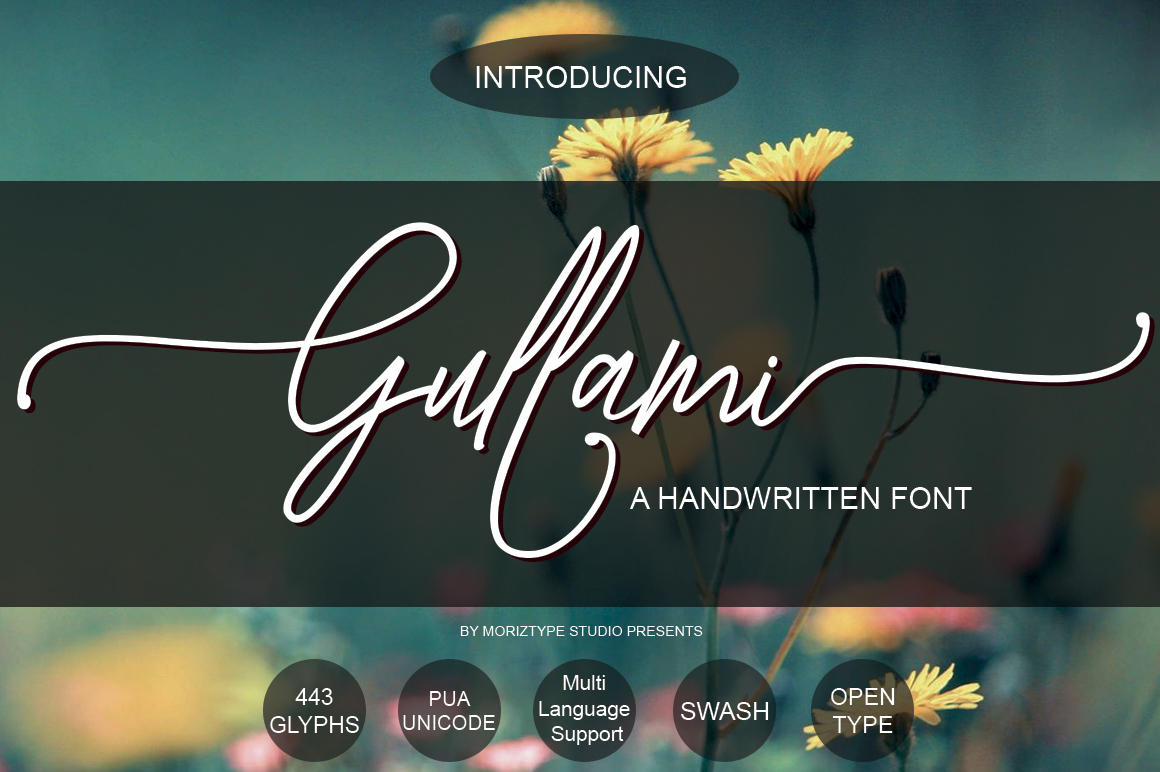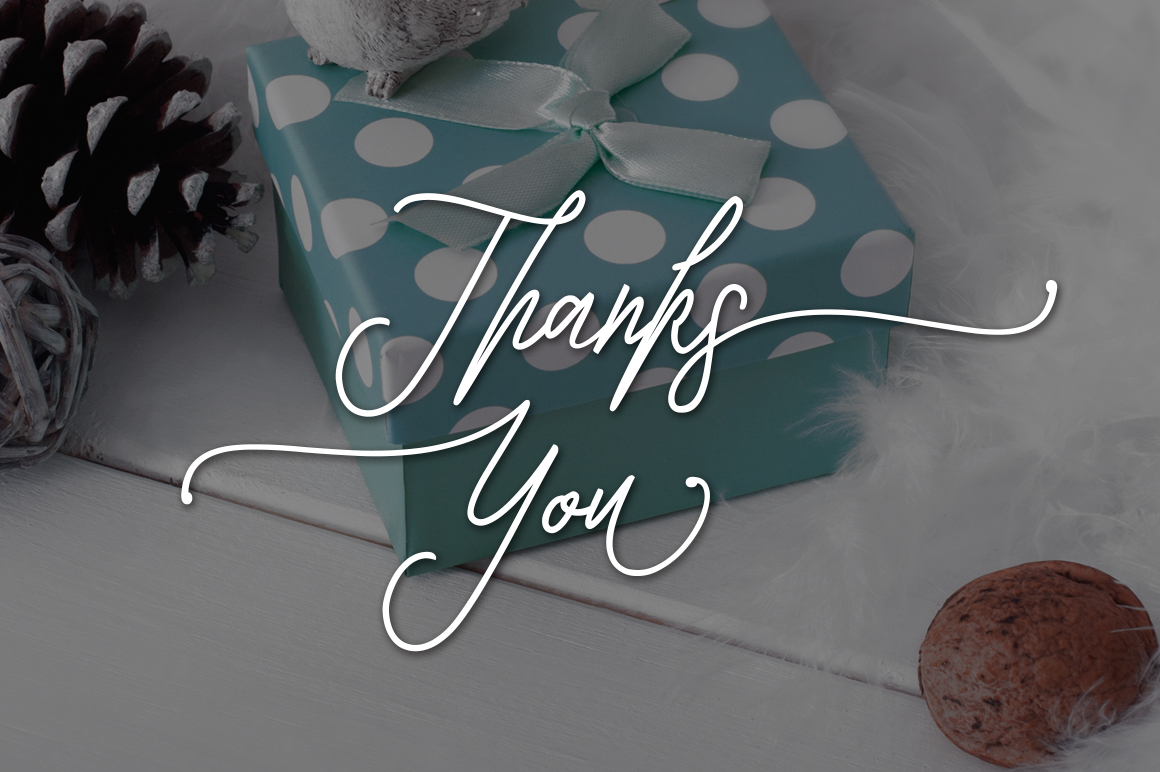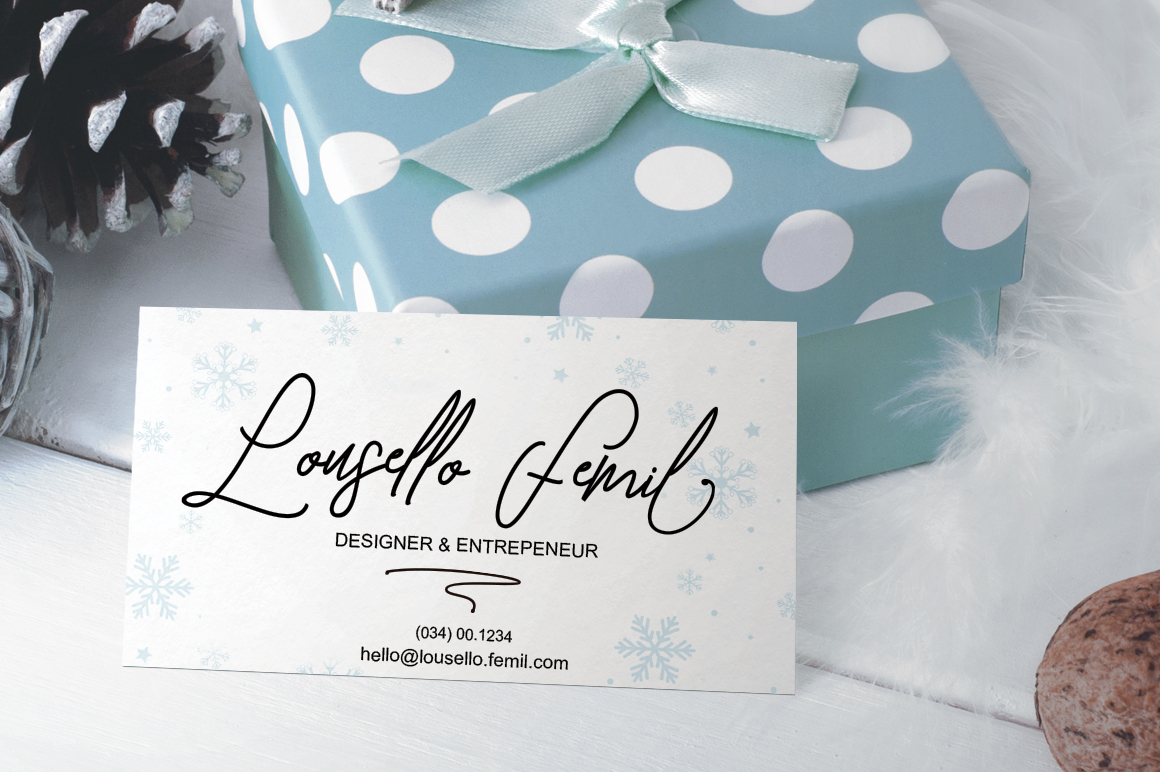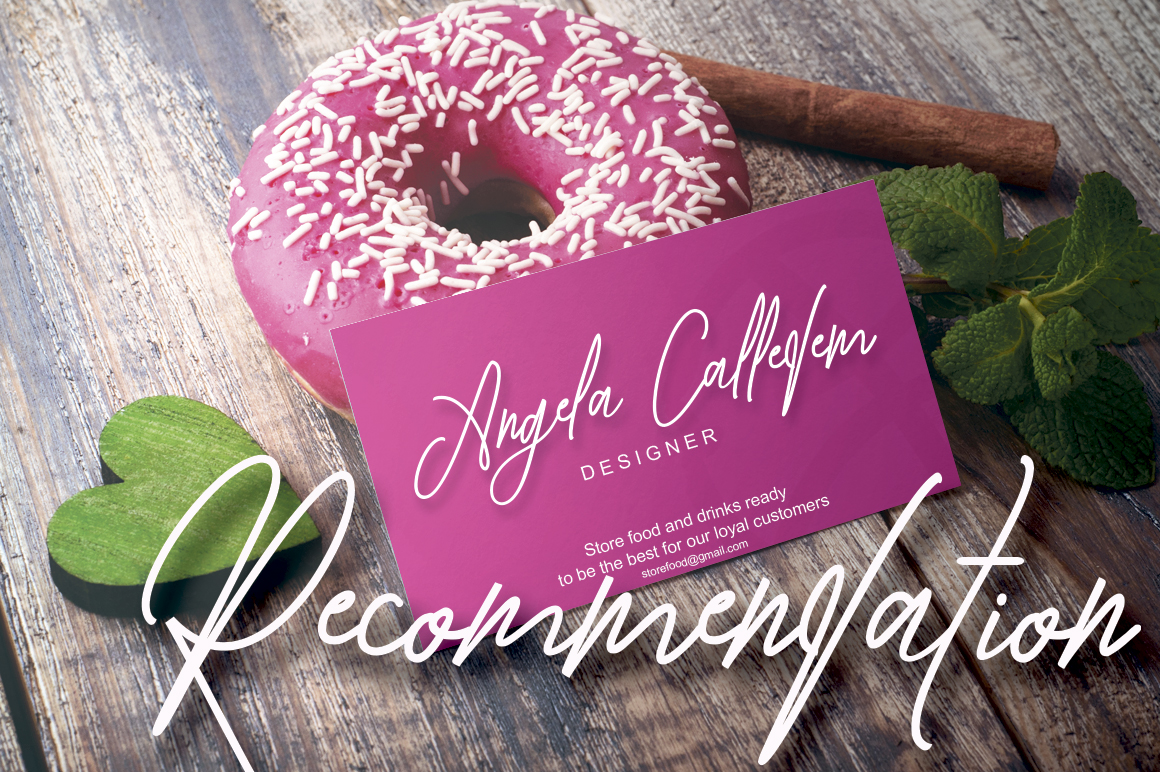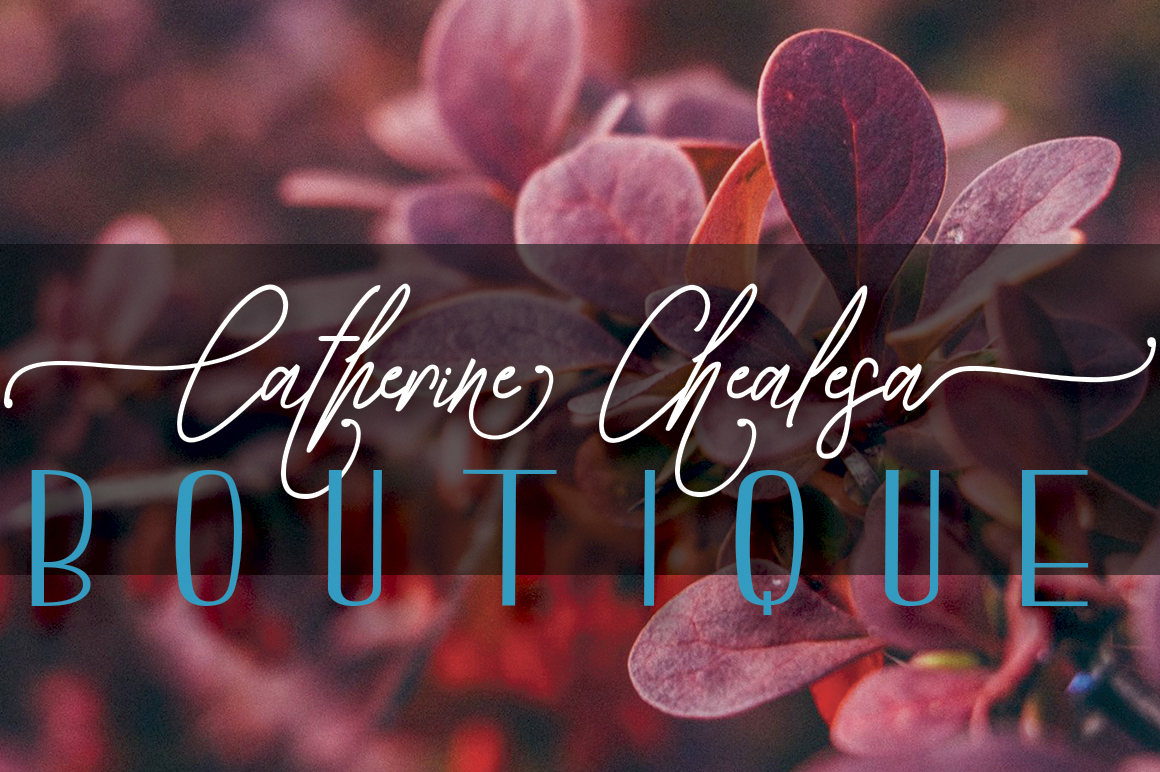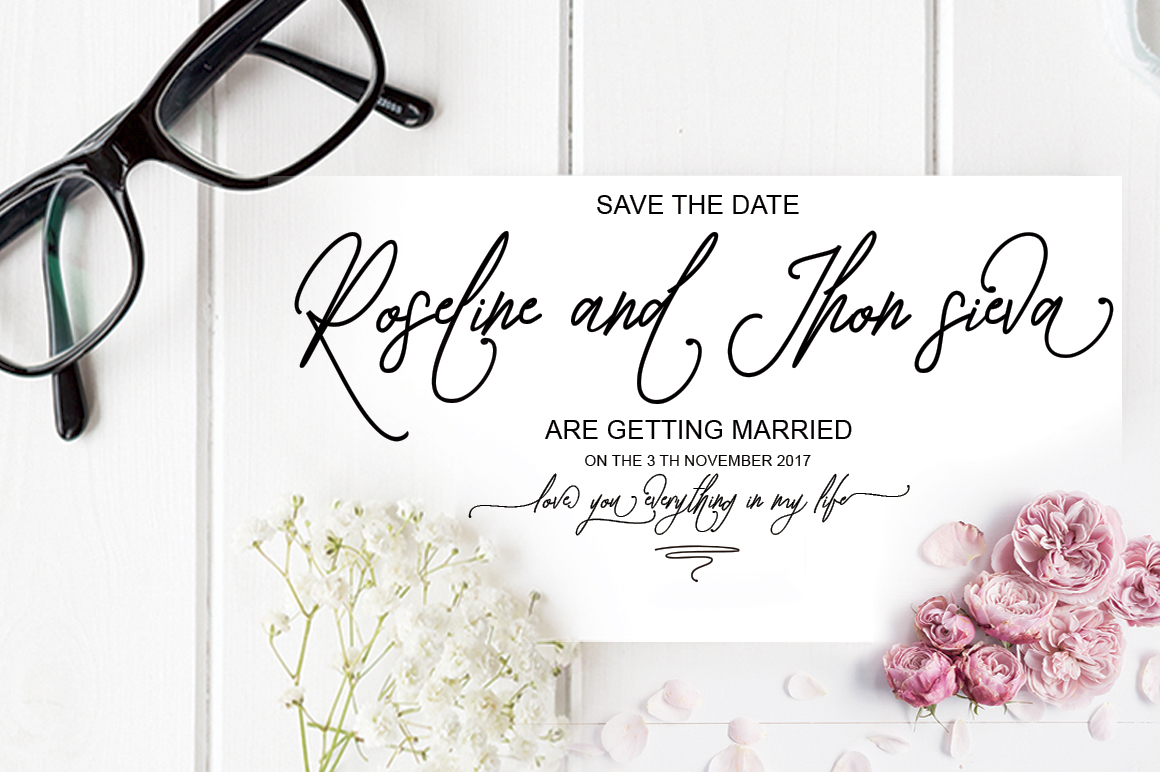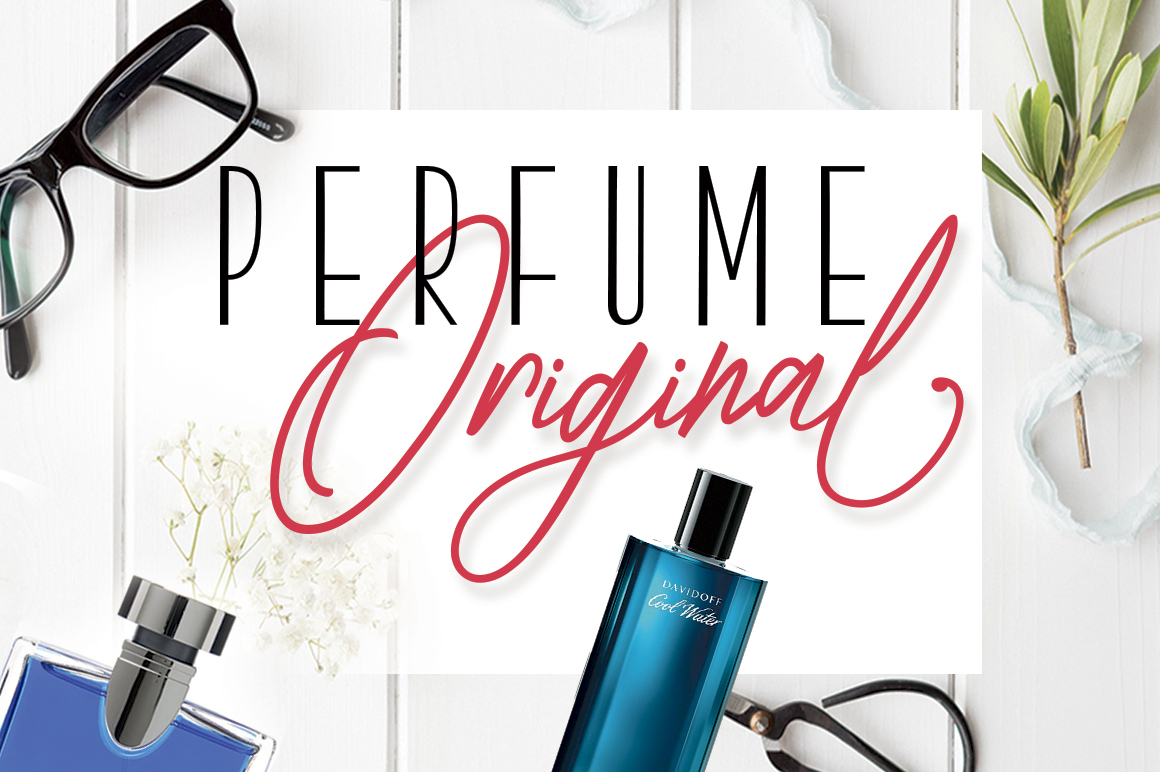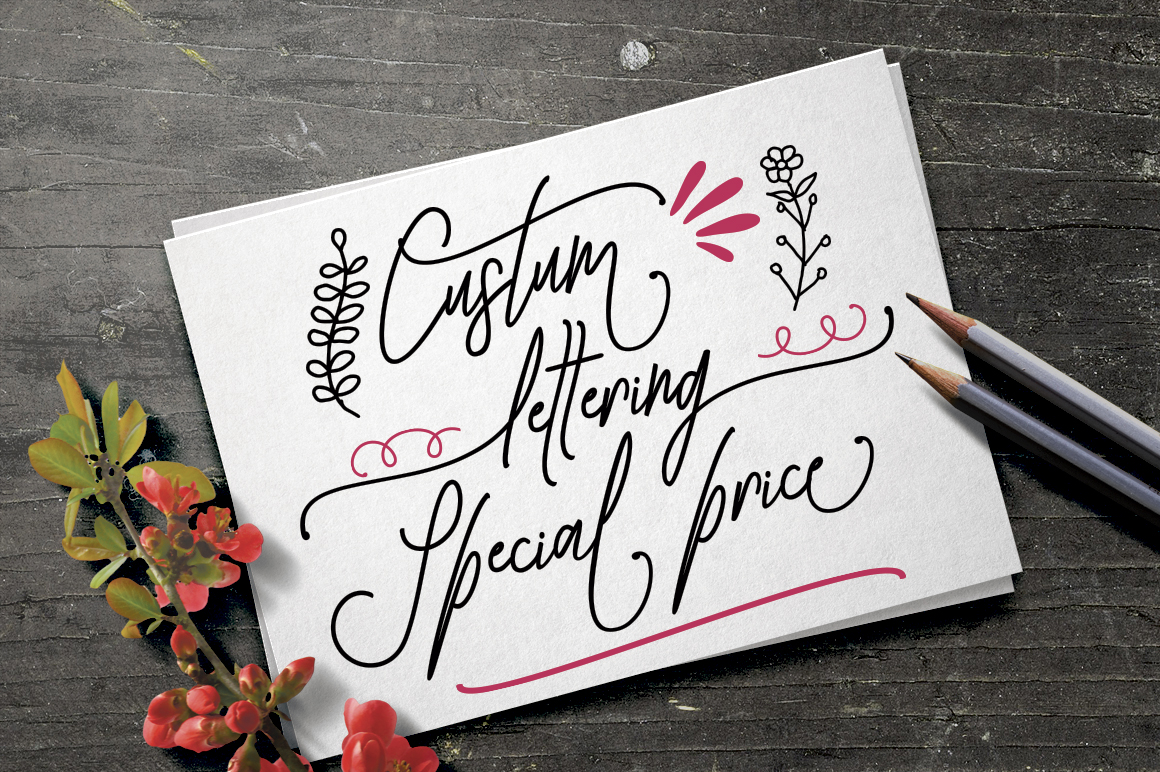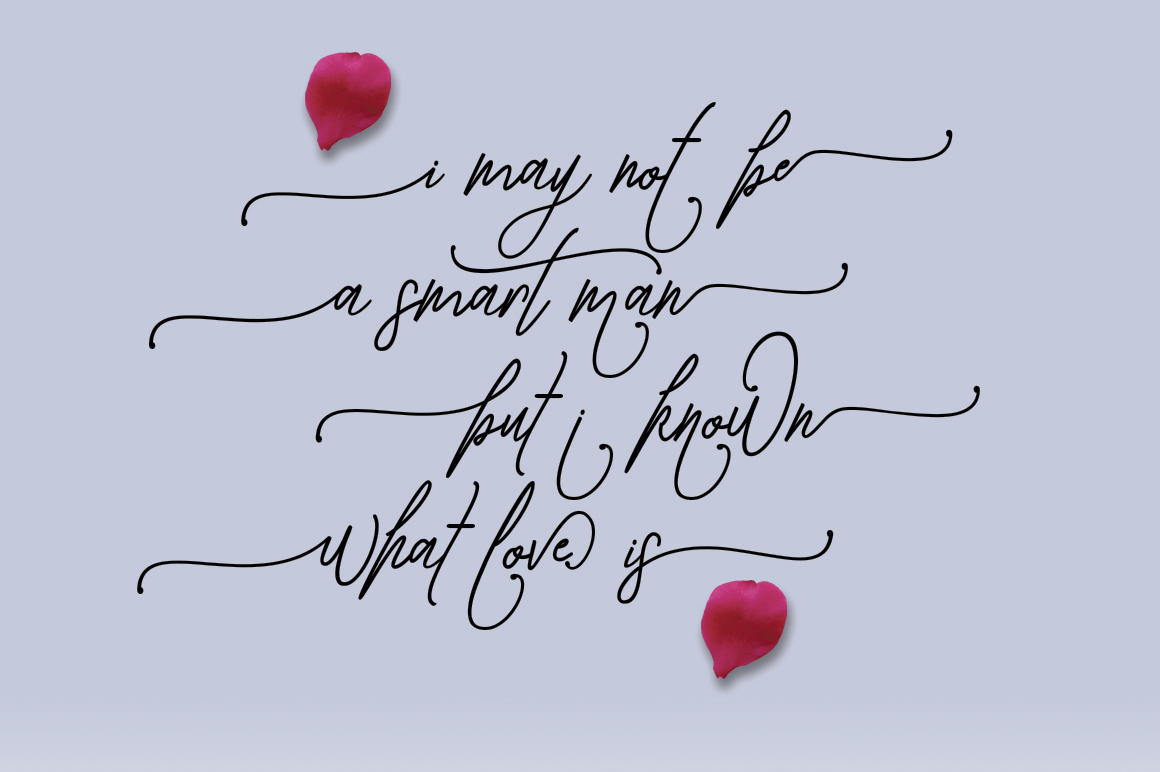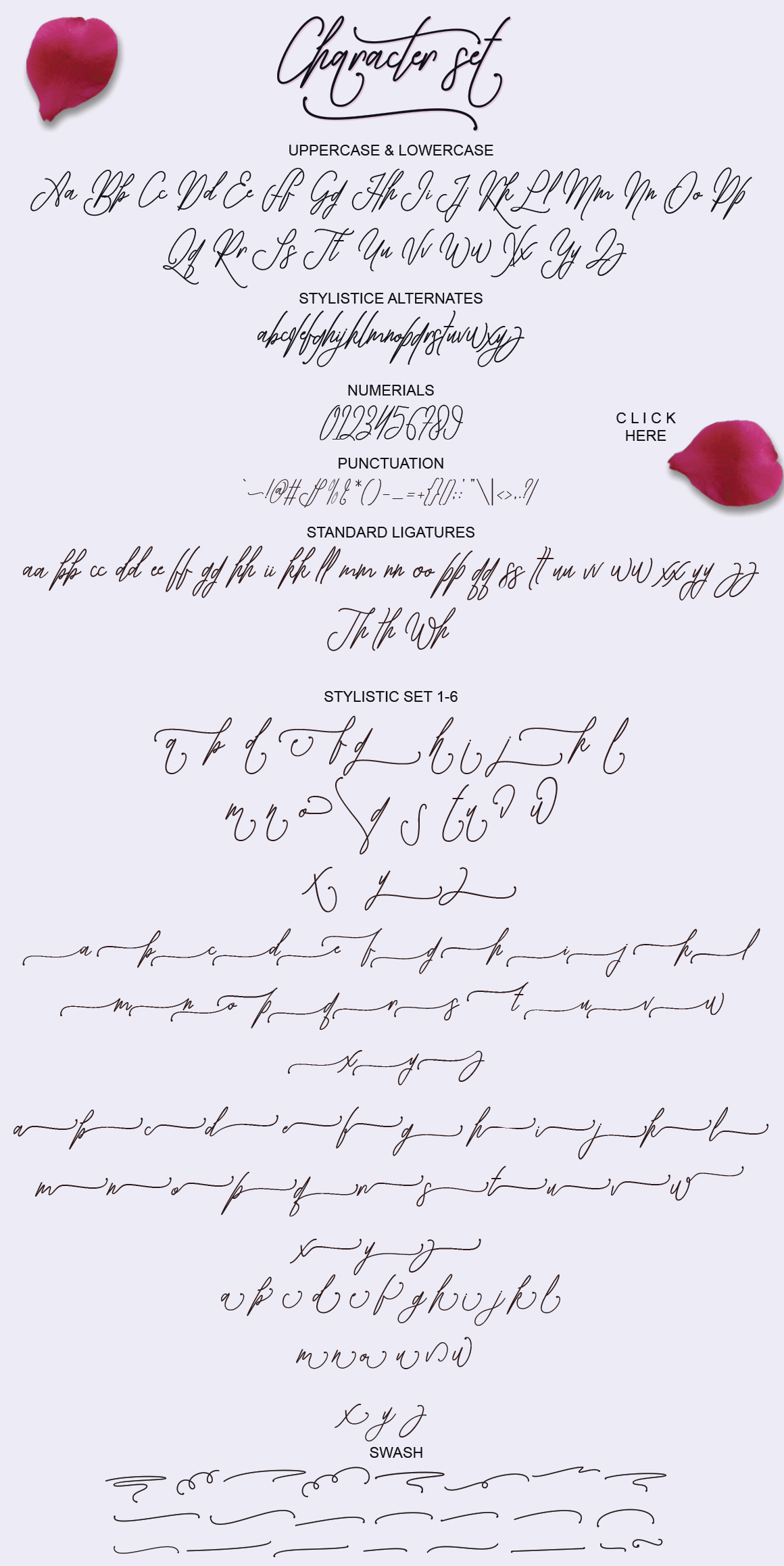
Gullami Rice Script Font
About Gullami Rice Script Font
Gullami Rice Script is an original handwriting script, making it fresh and natural among its contemporaries. Perfect for a wide range of decorative and display designs, Gullami Rice is a wonderfully adaptable font complete with over 400 glyph options.